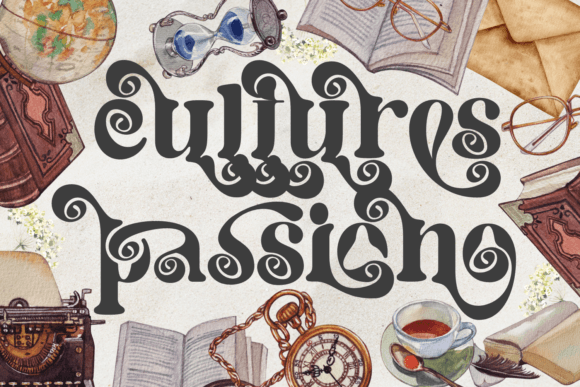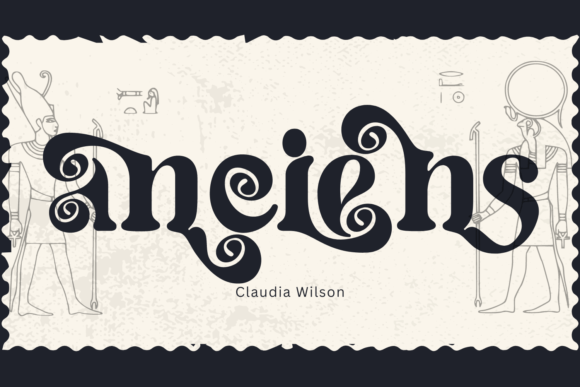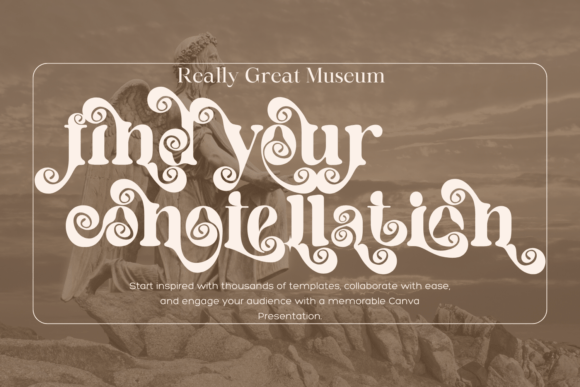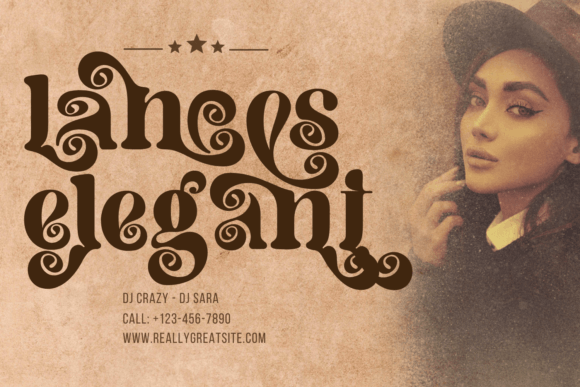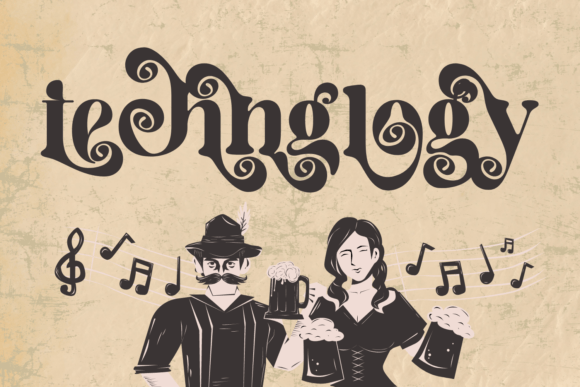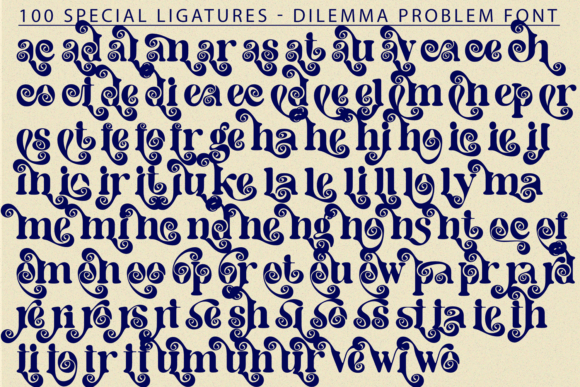
Dilemma Problem Font: The Ultimate Retro Bold Font for Groovy Designs
Are you a designer or crafter looking for a unique and bold font to give your designs a retro twist? Look no further than the Dilemma Problem Font! This bold retro font is packed with a lot of alternate glyphs, making it a standout from the crowd. With its 70s vibe, this font is perfectly matched for groovy retro and vintage designs.
What Makes Dilemma Problem Font So Special?
The Dilemma Problem Font is not just any ordinary font. Its stylistic alternates and ligatures make it truly unique and eye-catching. The font comes with a range of alternate glyphs that allow you to experiment with different styles and create one-of-a-kind designs. Whether you’re designing a logo, poster, or social media post, this font is sure to make your design stand out.
Perfect for Retro and Vintage Designs
The Dilemma Problem Font is specifically designed to evoke the spirit of the 1970s. Its bold and playful style is reminiscent of the era’s iconic designs, from psychedelic posters to funky packaging. If you’re looking to create a retro or vintage-inspired design, this font is the perfect choice. Use it to create groovy logos, covers, posters, quotes, product packaging, merchandise, and social media posts that are sure to transport your audience back in time.
Key Features of Dilemma Problem Font
- Bold Retro Style: The Dilemma Problem Font boasts a bold and playful retro style that’s perfect for creating eye-catching designs.
- Alternate Glyphs: The font comes with a range of alternate glyphs, allowing you to experiment with different styles and create unique designs.
- Stylistic Alternates and Ligatures: The font’s stylistic alternates and ligatures make it truly unique and add an extra layer of creativity to your designs.
- 70s Vibe: The font’s 70s vibe makes it perfect for retro and vintage-inspired designs.
Use Dilemma Problem Font for a Variety of Design Projects
The Dilemma Problem Font is versatile and can be used for a wide range of design projects, including:
- Logos: Create a bold and eye-catching logo that’s sure to make your brand stand out.
- Covers: Design a groovy cover for your book, magazine, or album that’s sure to grab attention.
- Posters: Create a psychedelic poster that’s sure to transport your audience back in time.
- Quotes: Design a visually appealing quote that’s sure to inspire and motivate.
- Product Packaging: Add a retro touch to your product packaging and make it stand out on store shelves.
- Merchandise: Create fun and playful merchandise, such as t-shirts, stickers, and tote bags, that are sure to appeal to fans of retro design.
- Social Media: Use the Dilemma Problem Font to create eye-catching social media posts that are sure to engage your audience.
In conclusion, the Dilemma Problem Font is a unique and bold retro font that’s perfect for designers and crafters looking to add a groovy touch to their designs. With its alternate glyphs, stylistic alternates, and ligatures, this font is sure to make your designs stand out from the crowd. Whether you’re designing a logo, poster, or social media post, the Dilemma Problem Font is the perfect choice. So why wait? Download the Dilemma Problem Font today and start creating your own retro-inspired designs!